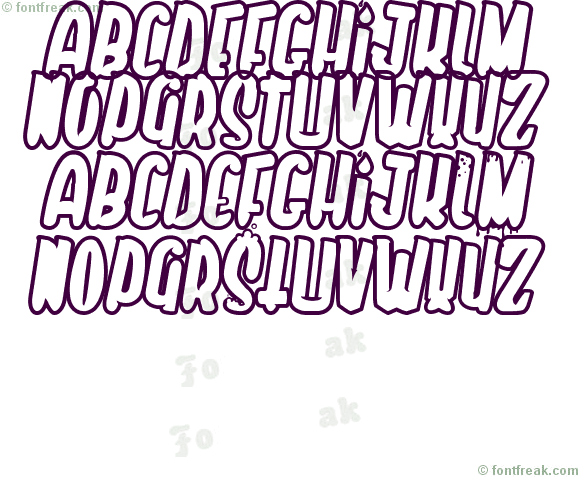
Yo te amo pero en secreto
About Yo te amo pero en secreto
The "Yo te amo pero en secreto" font, created by Maelle.K, is a delightful display typeface that captures attention with its playful and whimsical aesthetic. This font showcases a unique blend of a handwritten style and decorative elements, making it both charming and versatile. The stroke weight varies, adding dimension and personality, while the slight contrast enhances its visual appeal. Spacing is well-balanced, ensuring readability without sacrificing its artistic flair.
This font is particularly well-suited for a variety of creative applications. It shines in designs for wedding invitations, where its romantic undertones can evoke emotions beautifully. Similarly, it is perfect for movie posters that aim for a light-hearted or comedic theme, drawing viewers in with its friendly vibe. Restaurant menus can benefit from this font's unique character, creating an inviting atmosphere that encourages diners to indulge in the experience. Additionally, it can be used for social media graphics and flyers, appealing to content creators looking to make an impact with their promotional materials.
Targeting graphic designers, small business owners, and content creators, the "Yo te amo pero en secreto" font offers a fresh and engaging option for various projects. It invites creativity and personal expression, making it an excellent choice for anyone looking to add a distinctive touch to their work.